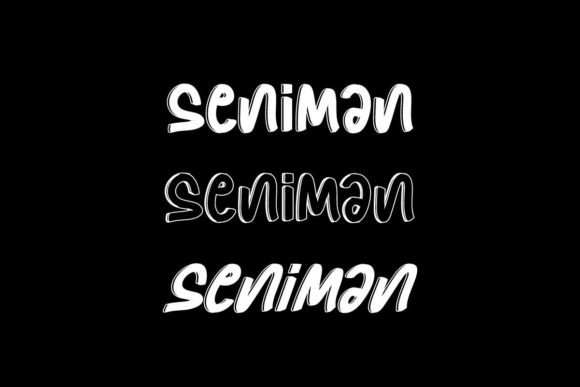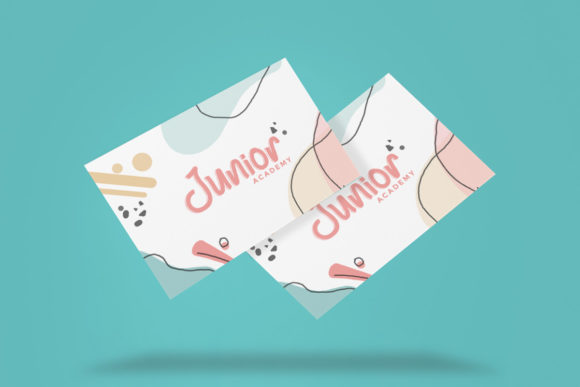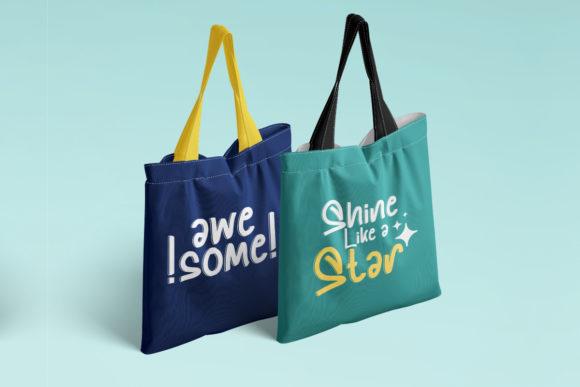
Introduction to Seniman Font
There’s something magical about the moment when a design concept clicks into place. You’re brainstorming ideas for a creative project, and suddenly, the perfect font pops into your head. For many designers, that moment is all about finding the right balance between style and functionality. And that’s where the Seniman Font comes in – a simple, quirky, and adaptable handwritten font that’s sure to add a relaxed touch to any design.
Whether you’re working on a personal project or a commercial design, the Seniman Font is an invaluable resource that’s easy to download and use. With its transparent background and high-quality design, this font is perfect for designers who want to add a touch of personality to their work without sacrificing professionalism.
As a free download, the Seniman Font is an accessible resource that’s waiting to be explored. From blog posts to social media graphics, this font is sure to bring a unique and creative touch to any design project.
Key Features of Seniman Font
- Unique, modern design with a touch of elegance suitable for various creative projects
- Perfect for designers, artists, and writers seeking a sophisticated and stylish font
Honest Review: Seniman Font
I recently stumbled upon the Seniman Font and I must say, it’s a hidden gem in the world of design resources. With its beautiful, hand-drawn design and high quality, it’s perfect for any creative project.
Here are some of the things that I like about the Seniman Font:
- ✨ The font is highly customizable, allowing designers to create unique and personalized designs.
However, I do have a few limitations to mention:
- ⚠️ The font may not be suitable for all design projects, particularly those that require a more formal or professional tone.
- ⚠️ The font may be too casual for certain audiences, such as corporate or business settings.
Overall, I’m really impressed with the Seniman Font and I would highly recommend it to designers looking for a high-quality, free design resource. Its versatility and customizability make it a great addition to any design toolkit.
Tips for Getting the Most Out of Seniman Font
To get the most out of Seniman Font, use it in combination with other design elements to create visually appealing and cohesive designs.
Also, experiment with different font sizes, styles, and colors to create unique and creative projects.
Common Use Cases for Seniman Font
Seniman Font is commonly used for:
Logo design
Business card design
Brochure